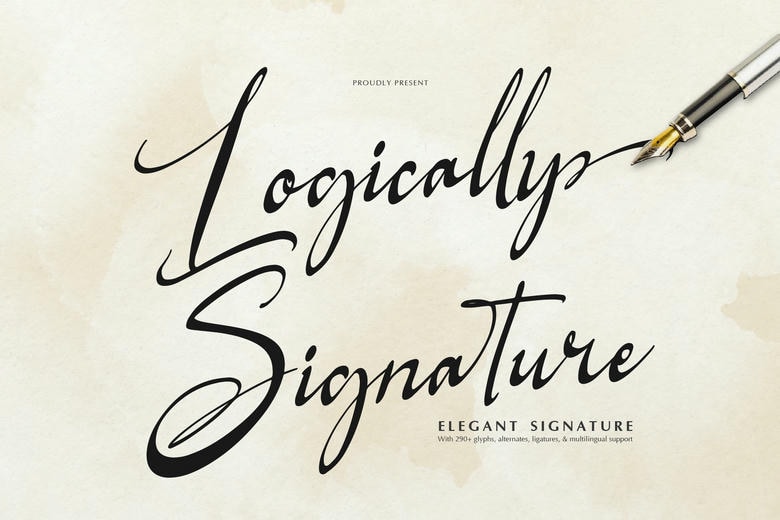
Logically Signature Font
Logically Signature is a beautiful, smooth, script typeface that approximates a genuine hand written signature. It has more than 290 glyphs, fashionable alternates and multilingual functions so that it is the best one to create logos, branding, fancy packaging and business cards.